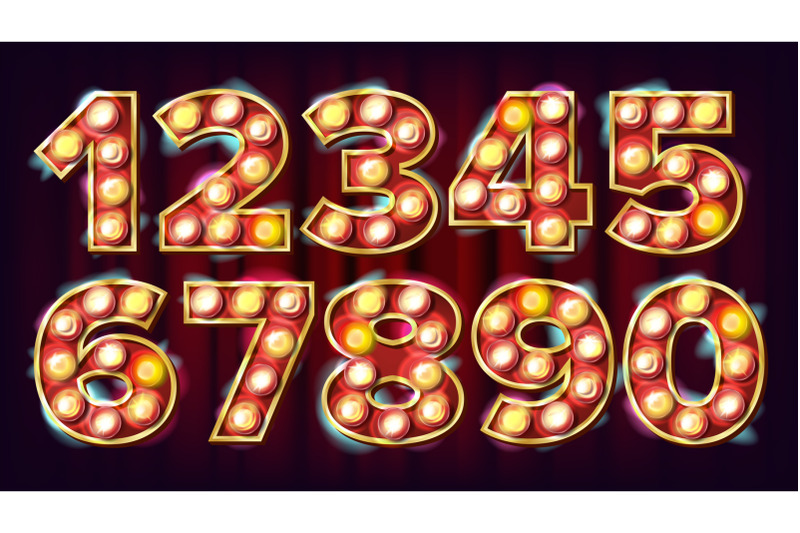
1, 2, 3 ,4 ,5 ,6 ,7 ,8 ,9 ,0 Numbers Set Vector. Font Marquee Light Sign. Realistic Retro Shine Lamp Bulb. 3D Electric Glowing Digit. Vintage Illuminated Light. Casino Style. Alphabet Illustration